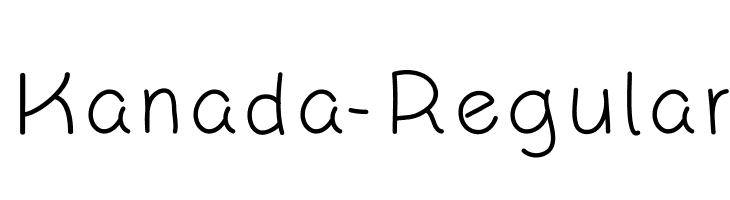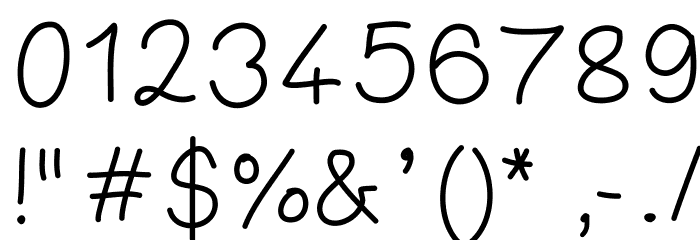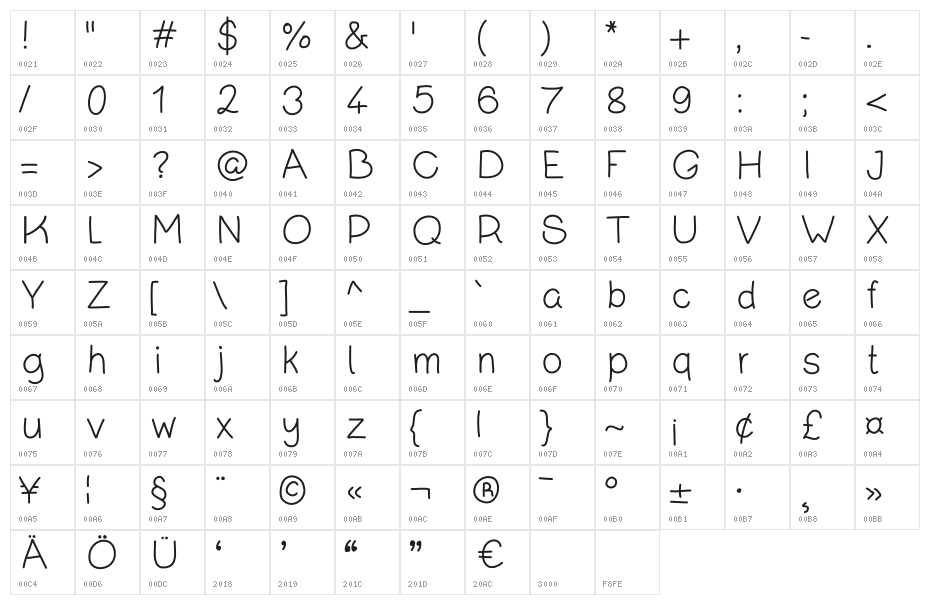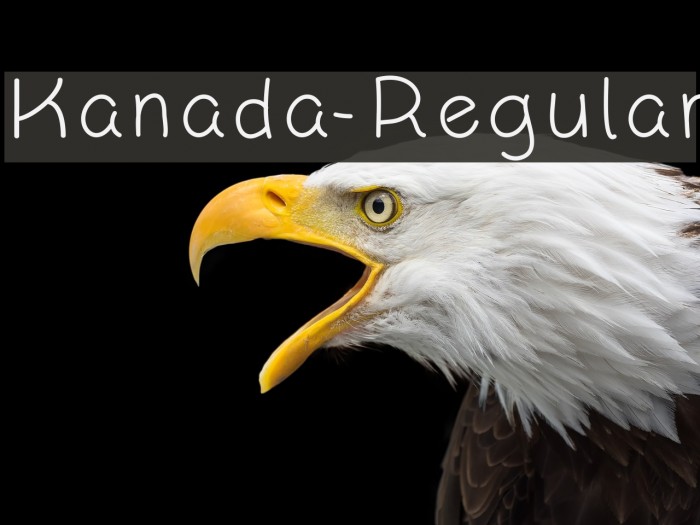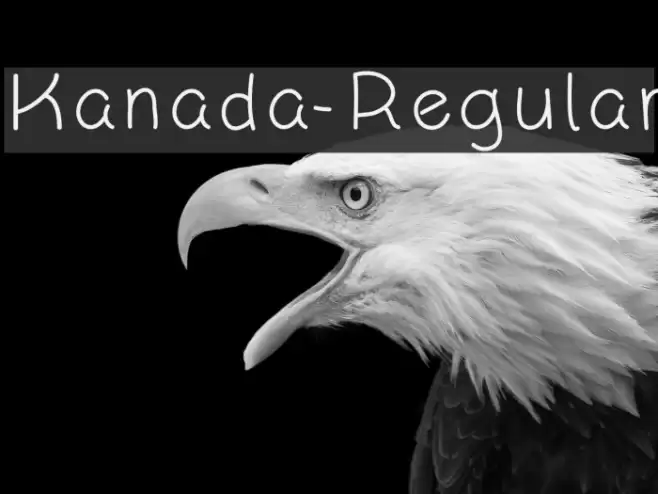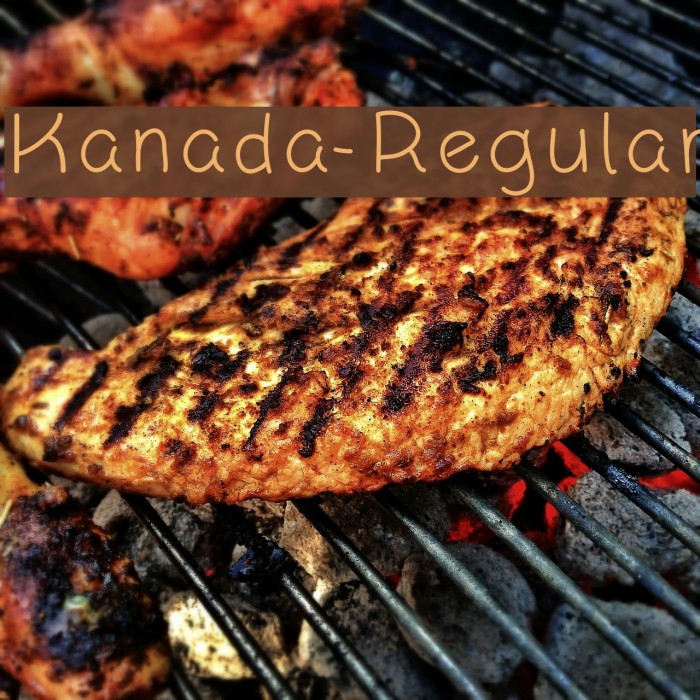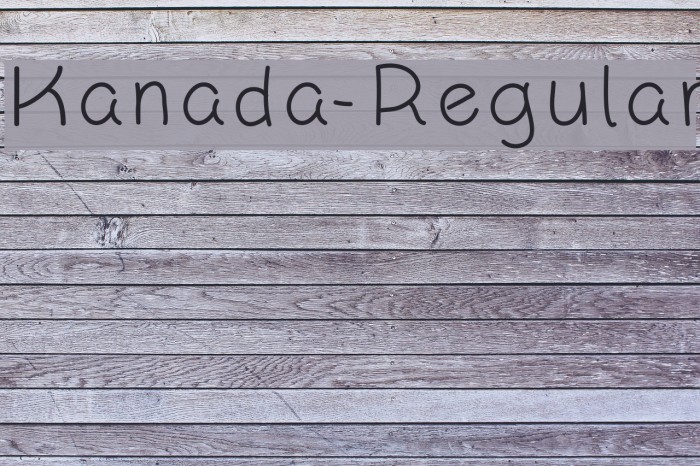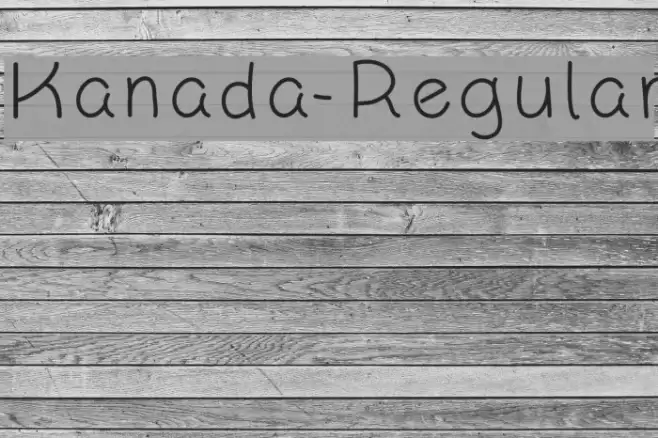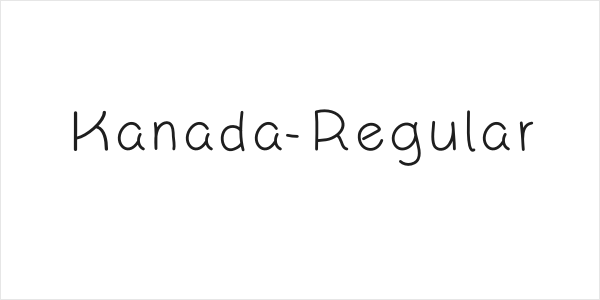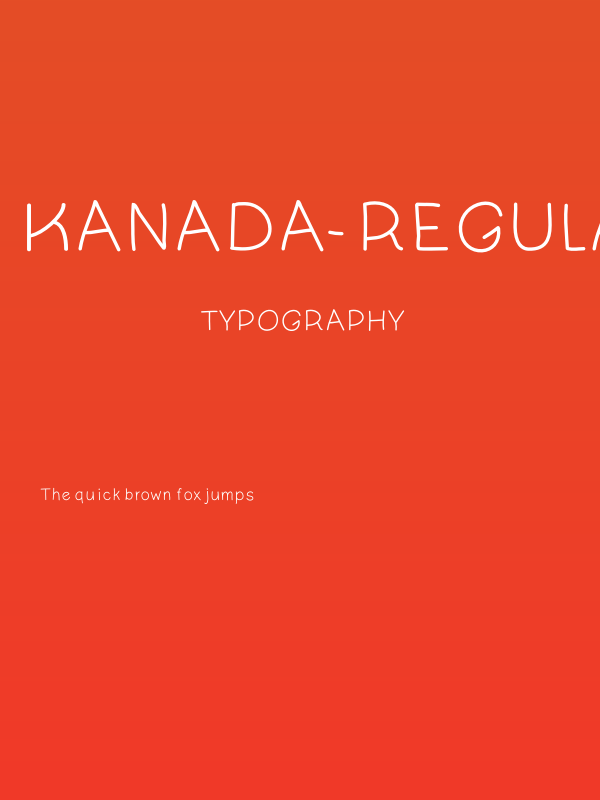
Kanada-Regular Font
Kanada-Regular Description
This font features a playful and casual handwritten style, characterized by its rounded and slightly irregular letterforms. The strokes are consistent in width, giving it a uniform appearance while maintaining a friendly and approachable feel. The uppercase letters are bold and prominent, while the lowercase letters are more relaxed and flowing. The numerals are clear and easy to read, matching the overall aesthetic of the font. Special characters are included, maintaining the same playful style, making it versatile for various uses.
| Proposed Projects | Ideal for children's books, greeting cards, casual invitations, and playful branding projects. |